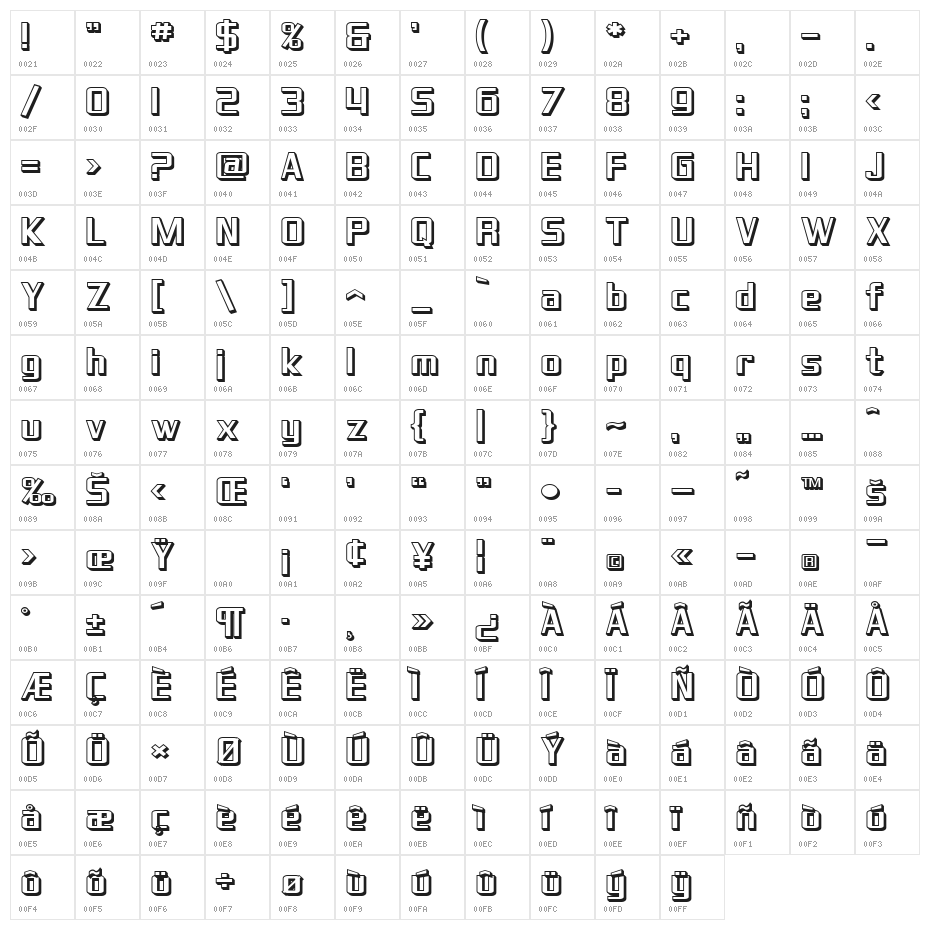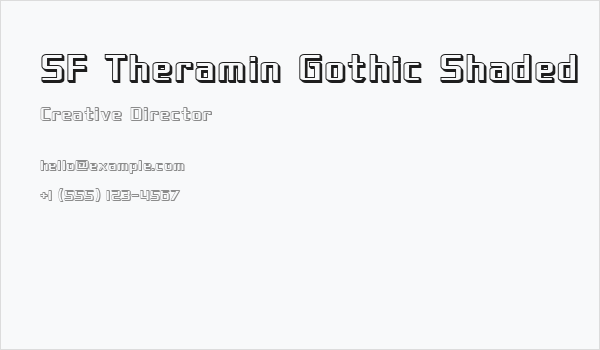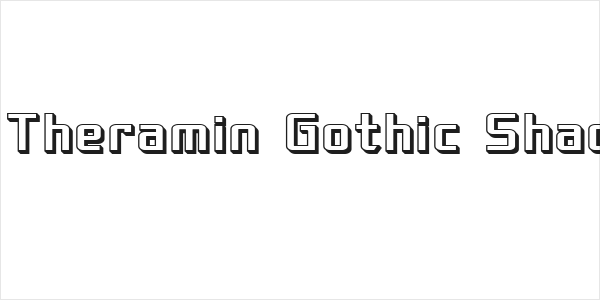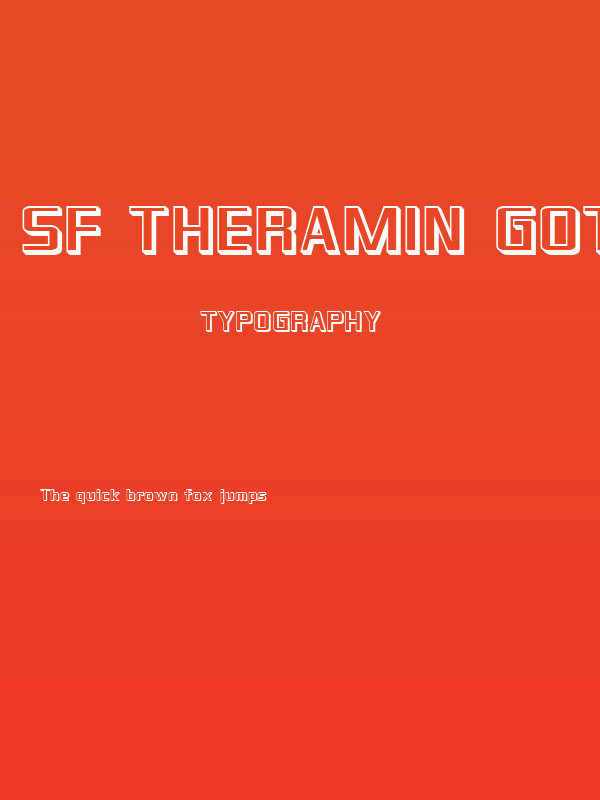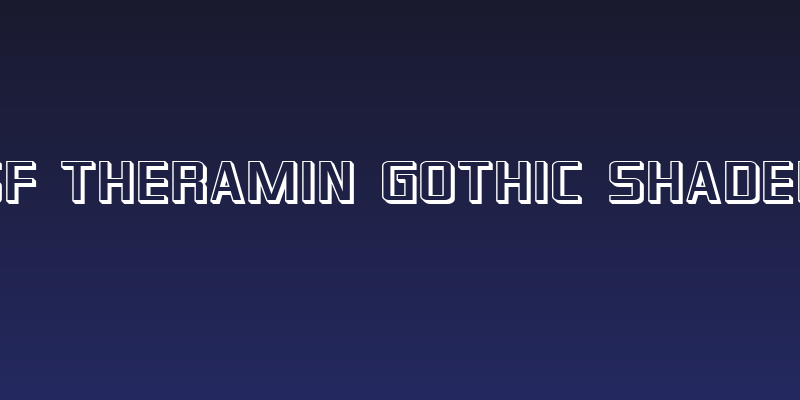
SF Theramin Gothic Shaded Font
SF Theramin Gothic Shaded Description
This font features a bold, geometric design with a distinct three-dimensional effect created by its shaded outline. The characters are structured with clean, straight lines and sharp angles, giving it a modern and futuristic appearance. The uppercase and lowercase letters maintain a consistent style, with the uppercase being slightly more pronounced. Numbers and special characters follow the same design principles, ensuring uniformity across all glyphs. The font's unique shading adds depth and visual interest, making it stand out in any design context.
| Proposed Projects | Ideal for futuristic designs, tech branding, video game titles, and eye-catching posters. |